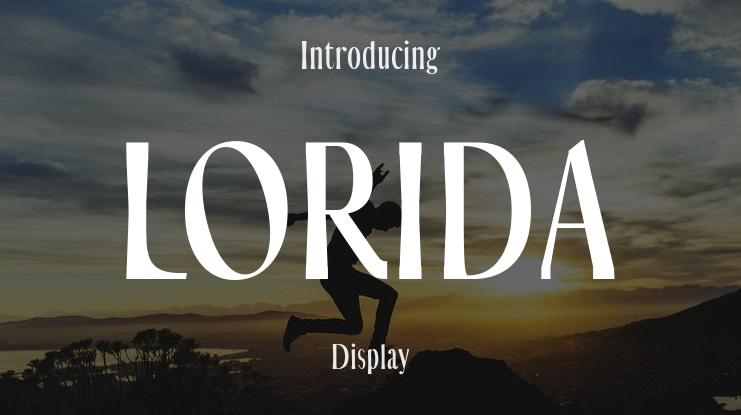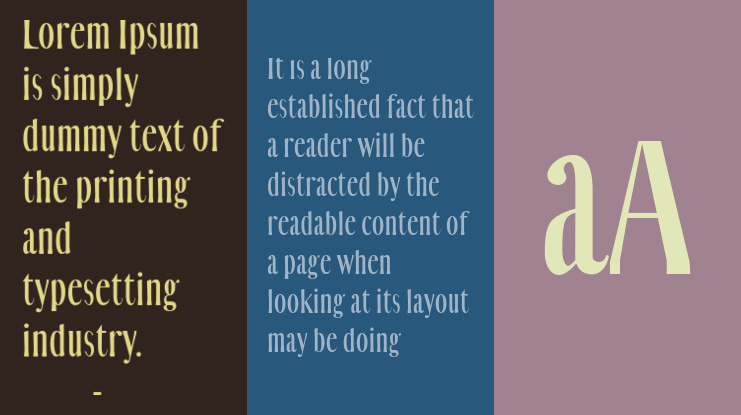
LORIDA Font Family
Lorida is a decorative sans serif with multilingual support—perfect for expressive branding, editorial charm, and creative packaging.